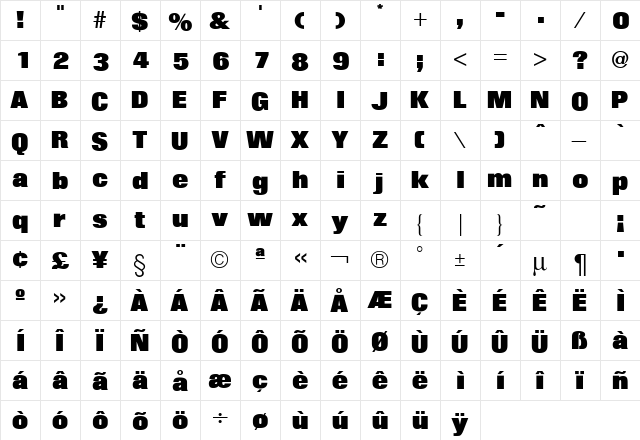
Folio ICG XBold Regular
Design Context for Folio ICG XBold Typeface
Folio ICG XBold is a composed and adaptable typeface that performs quietly and consistently across a wide range of design contexts. The heavy weight commands attention and anchors typographic hierarchies.